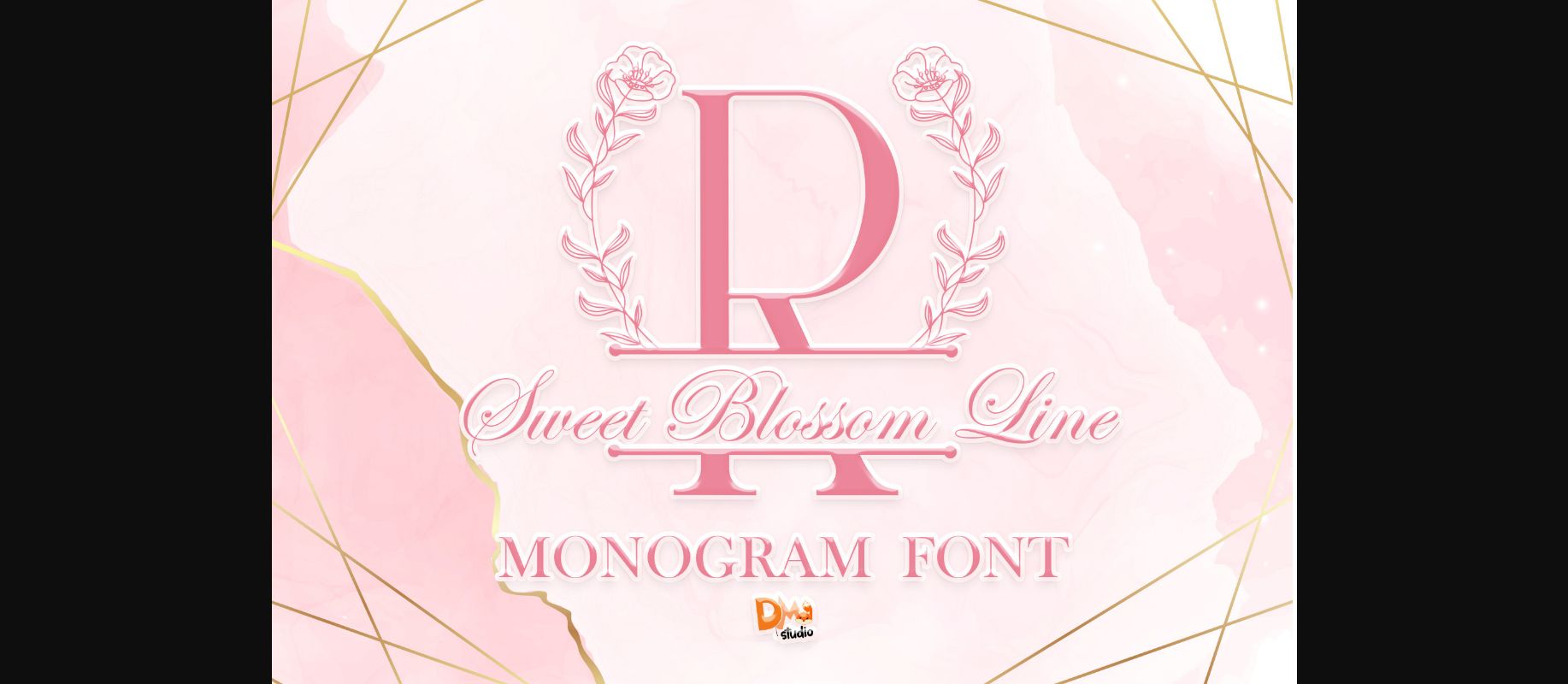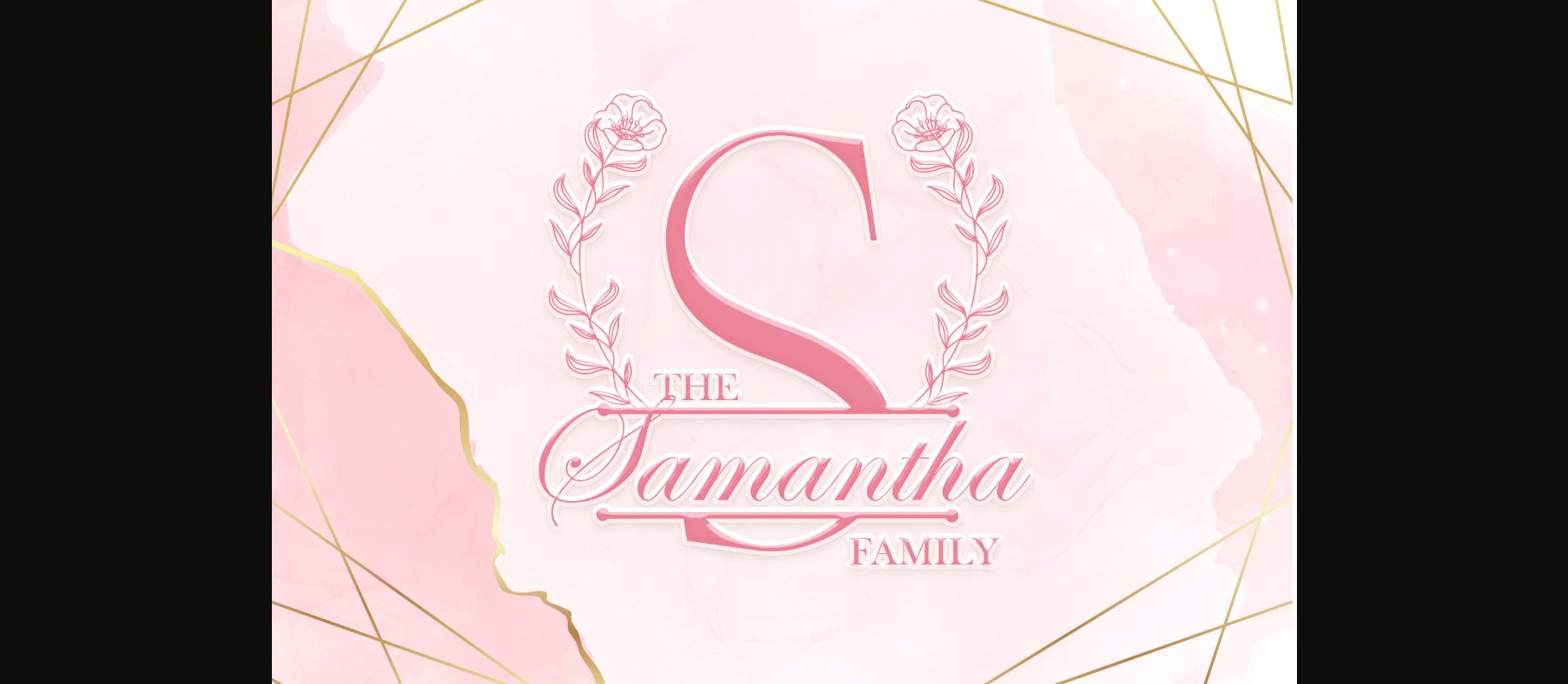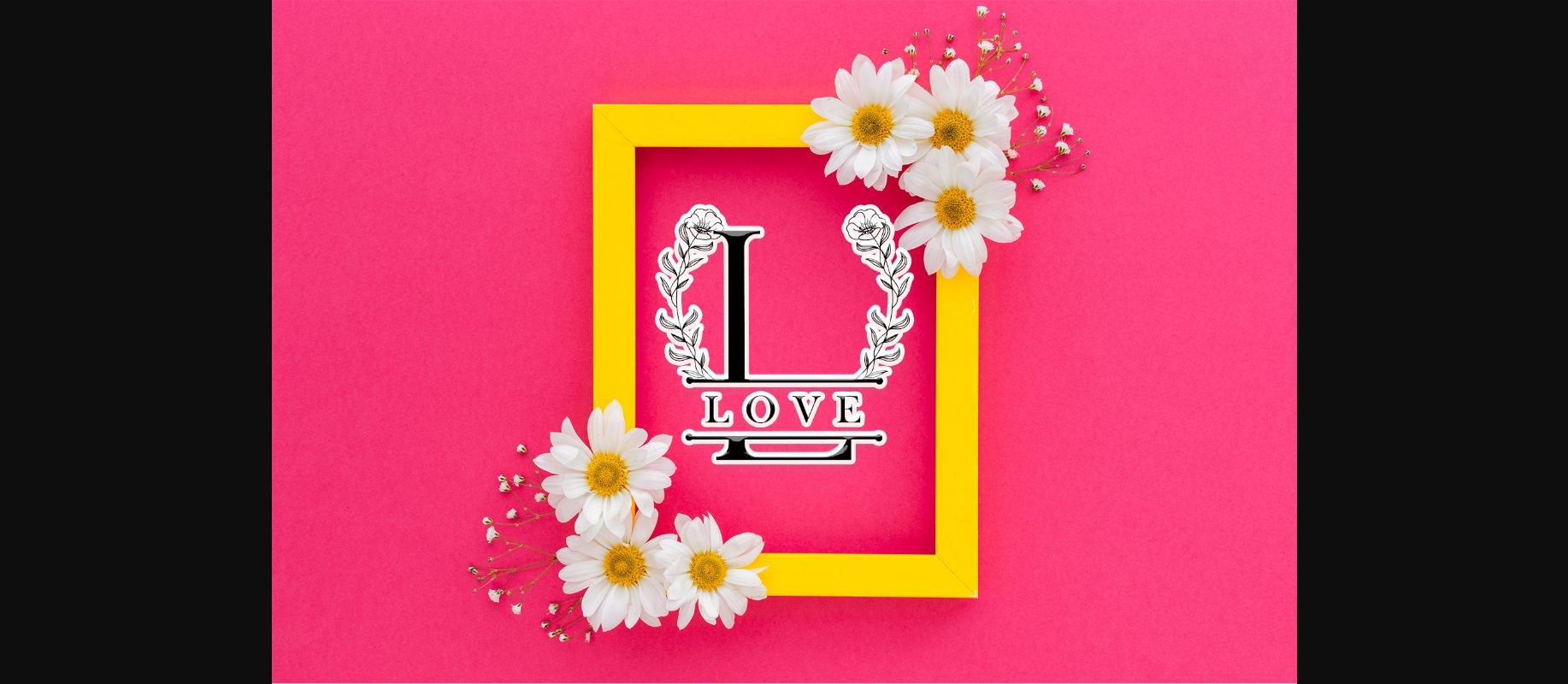
About Sweet Blossom Font
Sweet blossom is a lovely, elegant, and unique decorative font in a monogram style. It is decorated with hand-drawn wreaths for a touch of authenticity and style, perfect for your creative, exquisite projects!